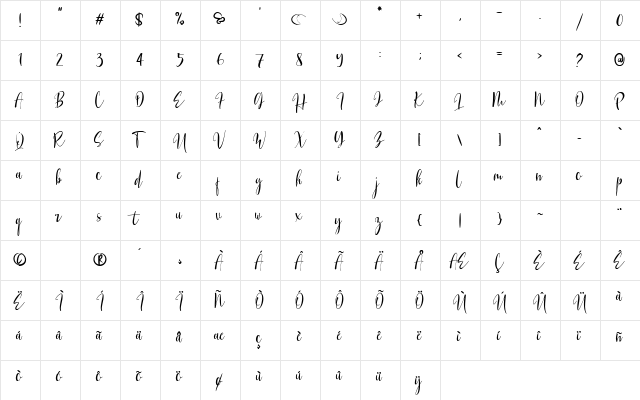
Generating Script Regular
| Foundry | 177Studio |
| Designer | 177Studio |
Design Context for Generating Script Typeface
Generating Script brings a calligraphic fluidity to the page — its connecting strokes and expressive curves give it an unmistakably human quality.